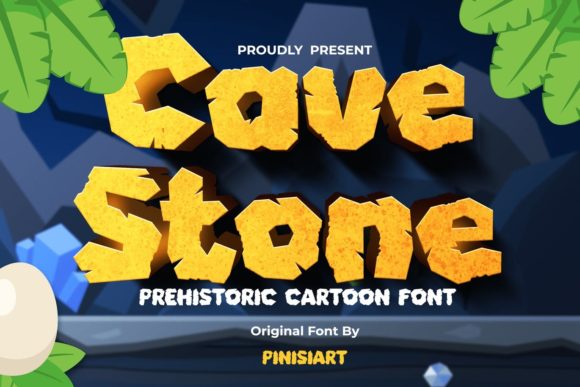
Introducing Cave Stone Font, the ultimate choice for those seeking the best font for subtitles gaming. Created by pinisi.art.koo, this prehistoric cartoon display font will transport you to a time when dinosaurs and mammoths roamed the ice world. Let the memories of that era come flooding back with Cave Stone.
With its unique and captivating design, Cave Stone Font is the perfect choice for a variety of purposes. Whether you're a history enthusiast, a children's book author, or a gamer looking to add a touch of nostalgia to your subtitles, this font is sure to impress.
Imagine the possibilities when using Cave Stone Font in your projects. Its prehistoric charm makes it ideal for history children's books, capturing the attention of young readers and adding an element of fun to their learning experience. The quirky and playful nature of this font will surely make your story come alive on the page.
But Cave Stone Font doesn't stop there. Its versatility extends to the world of online gaming. Whether you're designing a new game or updating your existing one, this font will enhance the gaming experience and immerse players in a world of adventure. Let the font itself become a part of the game, creating a seamless and unforgettable journey for your users.
Not only is Cave Stone Font perfect for books and games, but it also shines in other creative endeavors. Use it to create eye-catching posters that will grab the attention of passersby and entice them to explore further. Make your movie titles stand out with a font that captures the essence of adventure and excitement. And don't forget about social media – elevate your covers and thumbnails with Cave Stone Font, instantly captivating your audience and leaving a lasting impression.